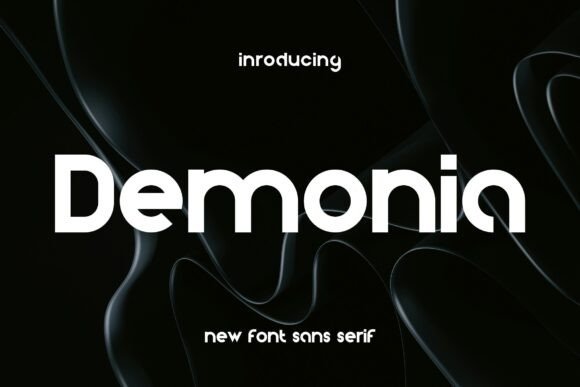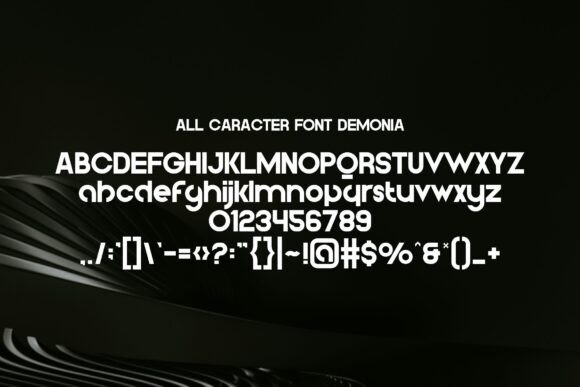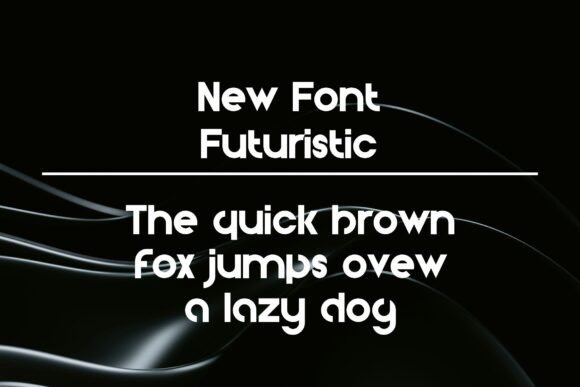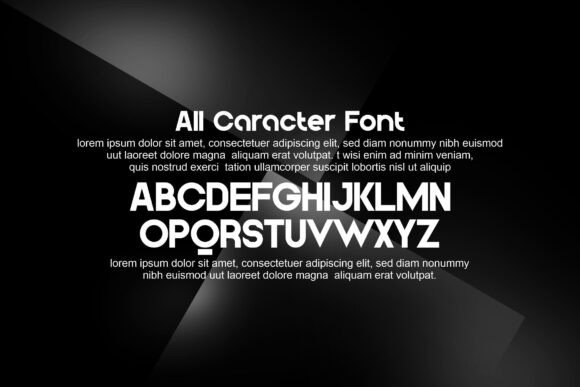
Demonia Font
About the Demonia Font
The Demonia Font offers a perfect balance of form and function for your design needs. Demonia is a bold and assertive sans serif font. No matter the topic, this font will be an incredible asset to your fonts’ library, as it has the potential to elevate any creation.
Demonia excels in headlines, posters, and branding applications where a strong, commanding presence is desired. Its bold strokes make it ideal for short impactful statements, logos, and packaging for products targeting a confident, assertive audience. However, its weight and assertive nature make it unsuitable for body text or UI elements requiring high readability over extended lengths.
The font’s inherent boldness is best complemented by pairing it with a clean, minimalist sans-serif like Lato for body copy or a more delicate serif like Garamond for a touch of classic elegance, creating a balanced visual contrast. Alternatively, a geometric sans-serif could provide a modern, structured counterpoint, enhancing Demonia’s assertive personality without overwhelming the design.
Demonia projects a rebellious, modern energy. Its assertive character is perfect for brands conveying strength, power, or innovation. Avoid using it in contexts requiring subtlety or a softer visual impact.
Demonia Font Usage Examples
Demonia Font Example